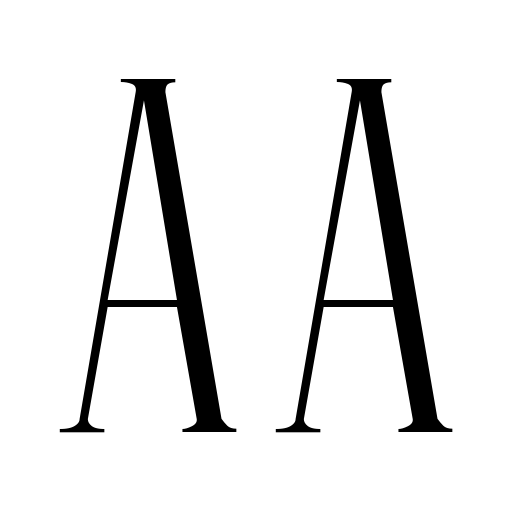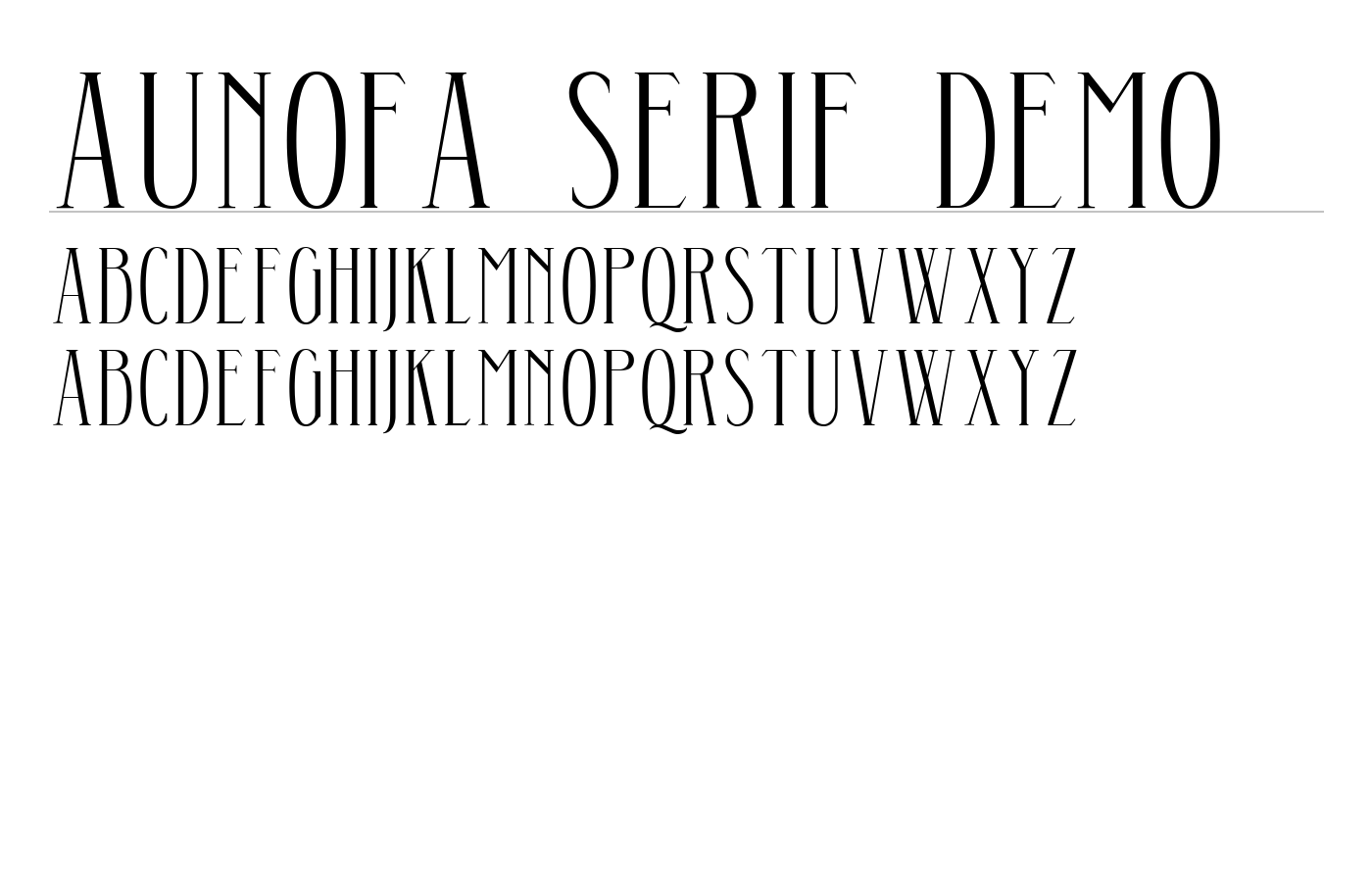
Aunofa Serif DEMO is a tall, elegant serif font with a high contrast between thick and thin strokes, featuring delicate, thin serifs and an overall slender, condensed structure. Its refined and sophisticated style makes it ideal for luxury branding, headlines, and editorial use where a modern yet classic impression is desired. This font works best in designs that require a graceful, upscale feel without sacrificing readability at larger sizes.
Aunofa Serif DEMO Font
About Aunofa Serif DEMO Font